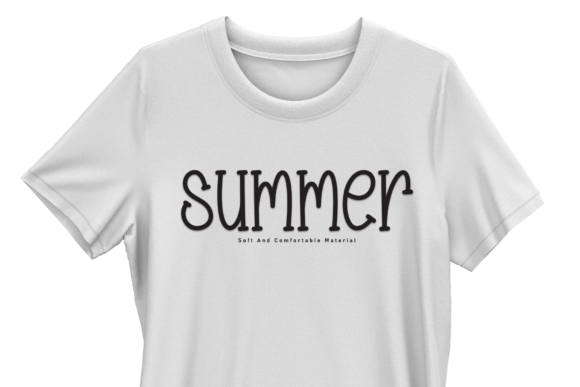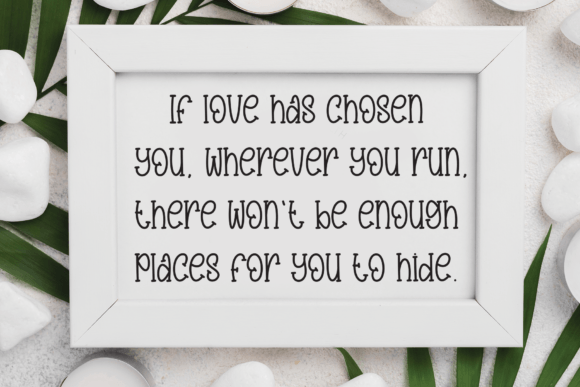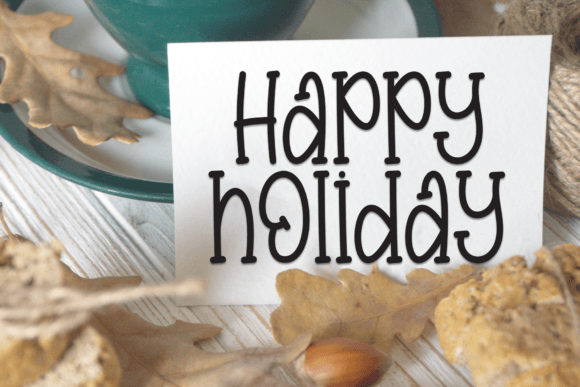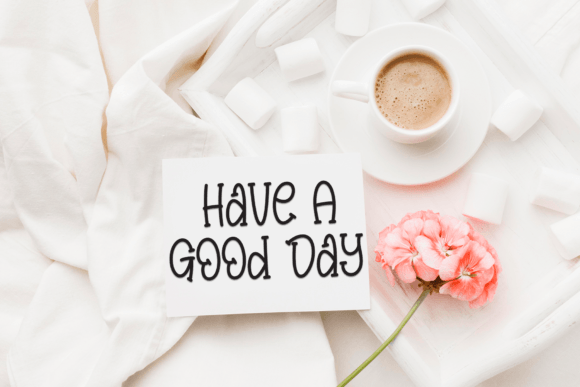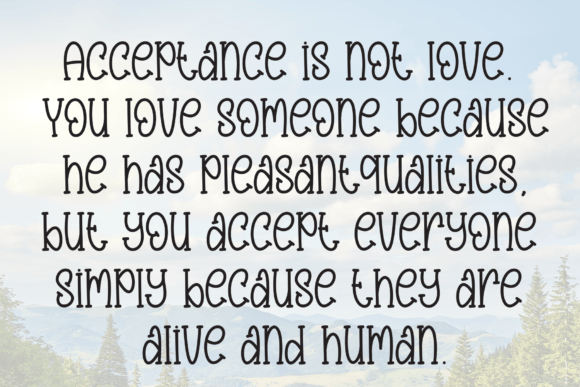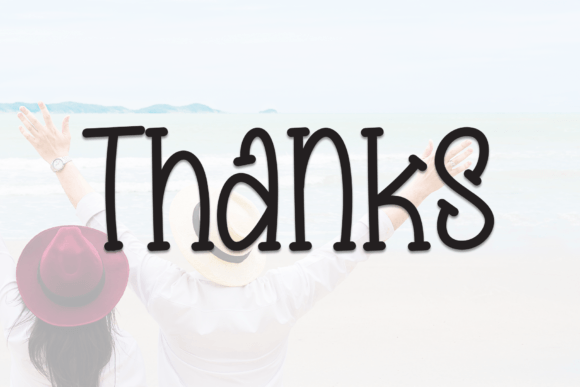
The Darling Beach Font: A Sweet and Friendly Companion for Your Design Journey
I’ll never forget the moment I stumbled upon the Darling Beach font. I was working on a project for a client who wanted a friendly, approachable vibe for their brand. I had spent hours scouring the internet for the perfect font, but nothing seemed quite right. That was until I discovered Darling Beach – a sweet and friendly handwritten font that instantly captured the essence of what my client was looking for.
As I began to work with Darling Beach, I realized that its natural and unique style made it incredibly fitting for a wide range of designs. From whimsical crafts to elegant branding, this font seemed to adapt effortlessly. In this article, I’ll share my experience with Darling Beach, including what I love about it, some practical tips on how to use it, and a few similar fonts you might enjoy.
An Honest Review of Darling Beach
What I Love About Darling Beach ✨
- ✅ Unique and friendly handwritten style that’s perfect for a wide range of designs
- ✅ Supports OpenType features, including glyphs and stylistic alternates
- ✅ Easy to pair with other fonts for a cohesive look
- ⚠️ Some users may find the font a bit too casual for very formal designs
- ⚠️ Limited availability of language support (but great for English and some European languages)
The Story Behind Darling Beach
Darling Beach was designed with the intention of creating a friendly, approachable font that would bring a touch of warmth to any design. Inspired by the carefree vibes of a beachside town, this font embodies a sense of joy and playfulness. Whether you’re a designer, crafter, or hobbyist, Darling Beach is here to help you bring your creative vision to life.
Q: What type of designs is Darling Beach best suited for?
A: Darling Beach is versatile and can be used for a wide range of designs, including branding, crafts, invitations, social media graphics, and more.
Q: Does Darling Beach support OpenType features?
A: Yes, Darling Beach supports OpenType features, including glyphs and stylistic alternates, giving you more creative control over your text.